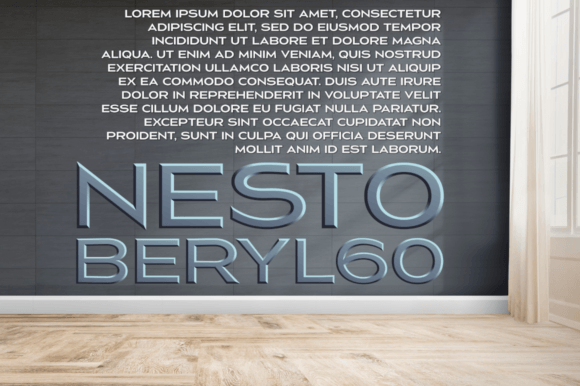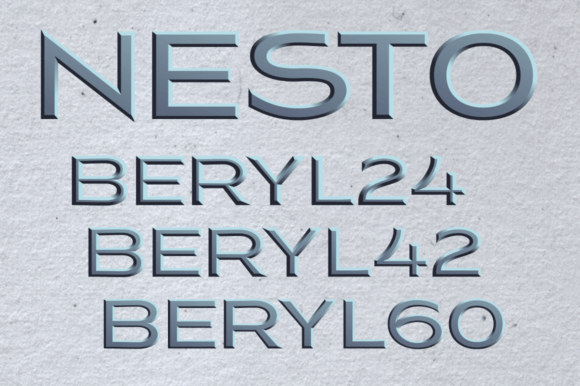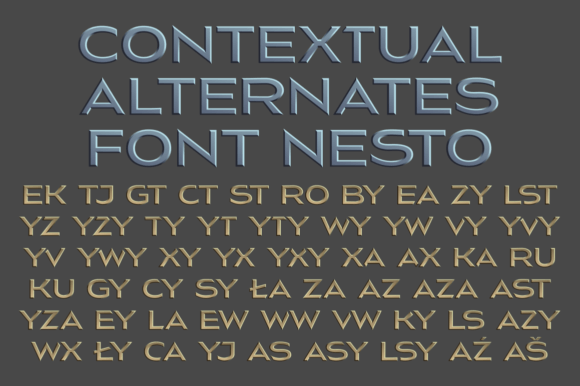
Nesto Copper Font
About Nesto Copper Font
“Nesto Copper” is a cool and assertive color font that brings a touch of versatility to your creative projects. With its adaptability and unique design, this font is sure to make a statement in your favorite creations.
The font is PUA encoded, which means you can easily access all of its amazing glyphs and ligatures. This allows for seamless integration into your designs and gives you the freedom to explore various possibilities. Whether you’re working on branding, logos, posters, or any other project, “Nesto Copper” will add a distinct and eye-catching element.
Embrace the confidence that “Nesto Copper” brings to your designs. Its cool and assertive nature sets it apart and adds a touch of sophistication. With this font, you can create captivating visuals and let your imagination run wild.
Discover the amazing outcome that “Nesto Copper” generates in your creative endeavors. Let its adaptability and unique style elevate your projects to new heights. The versatility of this font allows you to confidently experiment and find the perfect fit for your desired aesthetic.
Add “Nesto Copper” to your arsenal of design tools and let it inspire you as you create amazing works of art. Enjoy the process of exploring its vast array of glyphs and ligatures, and be amazed at the stunning results it helps you achieve.